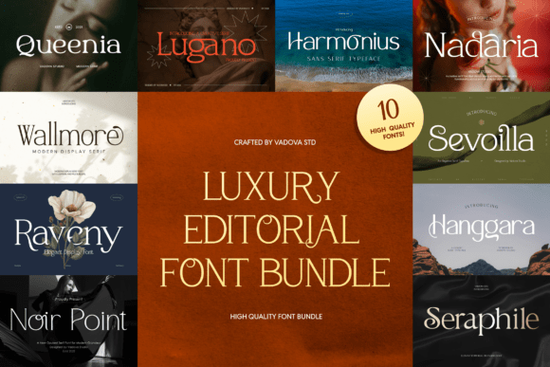
Choosing the right typeface can make or break a design that needs to feel polished and refined. The Luxury Editorial Bundle Font is a curated set of 10 high-quality typefaces that pair elegant serifs with refined sans serif styles, giving designers a solid toolkit for projects where sophistication matters most. If you work on branding, editorial layouts, or packaging, having a dependable collection of premium typefaces on hand saves time and keeps your work looking consistent.
What fonts are included in this bundle?
The bundle brings together 10 typefaces that balance classic elegance with modern readability. You'll find a mix of editorial serifs with graceful curves and carefully balanced proportions alongside clean sans serif styles that work well for body text and supporting copy.
Each font in the collection was designed with premium branding in mind. The letterforms are refined without being overly decorative, which means they hold up well across different sizes and formats. Whether you need a bold display typeface for a magazine cover or a clean sans serif for product labels, this bundle covers a wide range of design needs.
Who is this font bundle best suited for?
This collection works well for anyone creating designs where a polished, high-end look matters. Here are some common use cases:
- Fashion and lifestyle editorials Magazine spreads, lookbooks, and blog headers
- Boutique and luxury branding Logos, brand guidelines, and business cards
- Beauty and cosmetic packaging Labels, boxes, and product inserts
- Wedding and event stationery Invitations, menus, and programs
Small business owners who want a cohesive brand identity without hiring a full design team will also find this bundle practical. Having 10 coordinated typefaces means you can build a full visual system headlines, body text, accents from one download.
How does it compare to other serif font options?
There are plenty of serif fonts available on Creative Fabrica, but what sets this bundle apart is the combination of quantity and cohesion. Instead of mixing typefaces from different designers which can lead to mismatched proportions and visual inconsistency you get 10 fonts that were designed to complement each other.
Tips for pairing fonts from this bundle
Good font pairing is about contrast and balance. Here are a few practical tips:
- Pair a bold serif headline with a light sans serif body This creates a clear hierarchy without competing for attention.
- Stick to two or three fonts per project Even though you have 10 options, using too many at once makes designs look cluttered.
- Match the mood If your serif feels formal, pick a sans serif with similar weight and spacing rather than something ultra-modern.
- Test at different sizes A typeface that looks great at 72pt might lose readability at 12pt. Always check both display and body sizes.